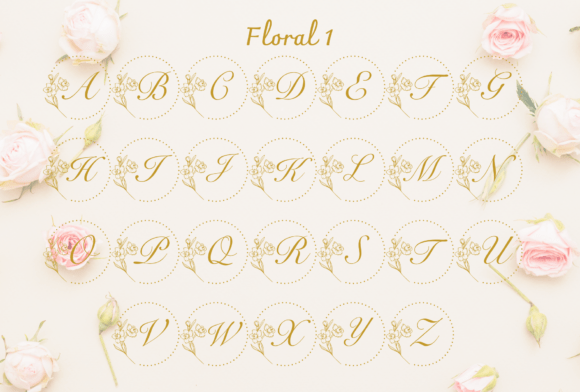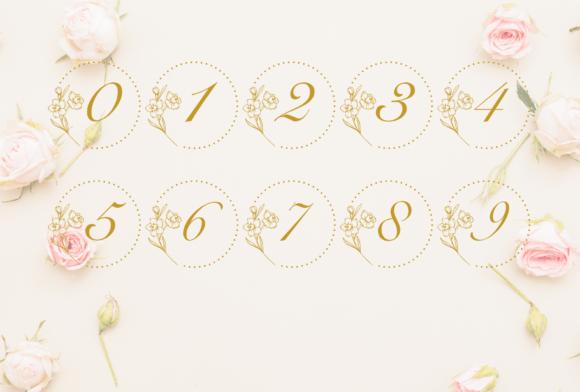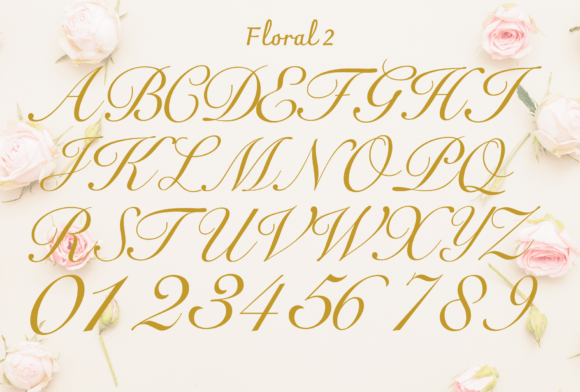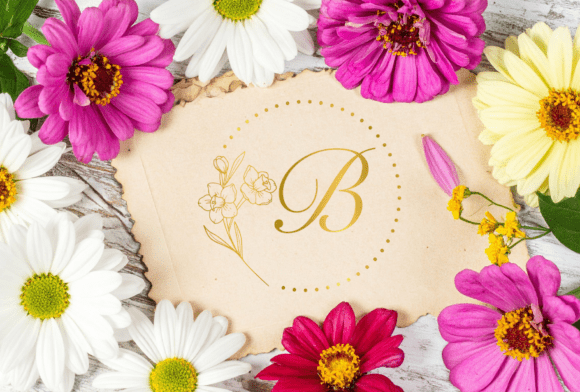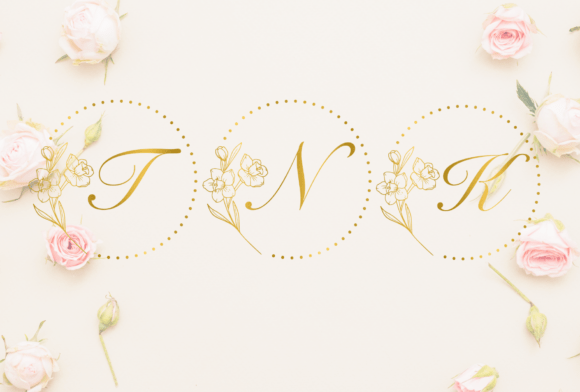
The Elegance of Floral Monogram Font: A Designer’s Delight
I’ll never forget the moment I stumbled upon the perfect font for a wedding invitation project. I had been searching for what felt like hours, trying out font after font, but nothing seemed quite right. That was until I discovered the Floral Monogram Font. Its elegant calligraphy and delicate floral illustrations instantly captured my heart, and I knew I had found the one. In this article, I’ll share my love for this refined and graceful monogram font, its features, and how to make the most of it in your designs.
- ✨ The beautiful blend of elegant calligraphy and soft botanical elements, making it perfect for wedding invitations, feminine branding, and luxurious stationery.
- ✅ The golden script paired with line-art florals creates a timeless and romantic aesthetic.
- 💕 The font’s versatility, allowing it to be used for both digital and print designs.
- 👍 The attention to detail in the font’s design, making it suitable for high-end clients or personal projects.
While Floral Monogram Font is a stunning addition to any design, there are a few things to keep in mind:
- ⚠️ The font’s intricate design may not be suitable for very small font sizes or low-resolution images.
- 🤔 Some users may find the font’s reliance on OpenType features and glyphs requires a bit of a learning curve.
The Story Behind Floral Monogram Font
Floral Monogram Font was designed with the intention of capturing the essence of traditional calligraphy and combining it with the delicate beauty of botanical illustrations. The designer, inspired by vintage wedding invitations and floral arrangements, sought to create a font that would evoke a sense of romance and sophistication. Through careful attention to detail and a passion for elegant design, Floral Monogram Font was born.